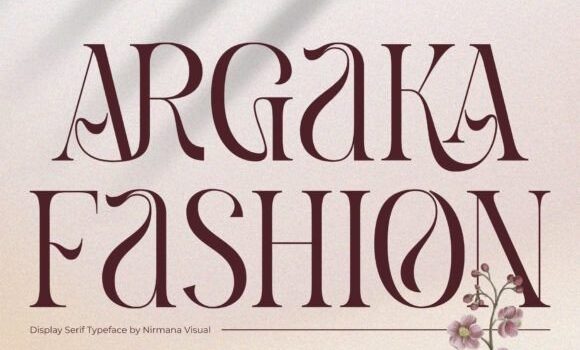
Argaka Fashion Font – Free Download Introduction to Argaka Fashion Font Argaka Fashion is an elegant serif display font, that features a very delicate and classy look. 📸 Preview Gallery 6 images 📌 Product Name Argaka Fashion Font 👤 Author